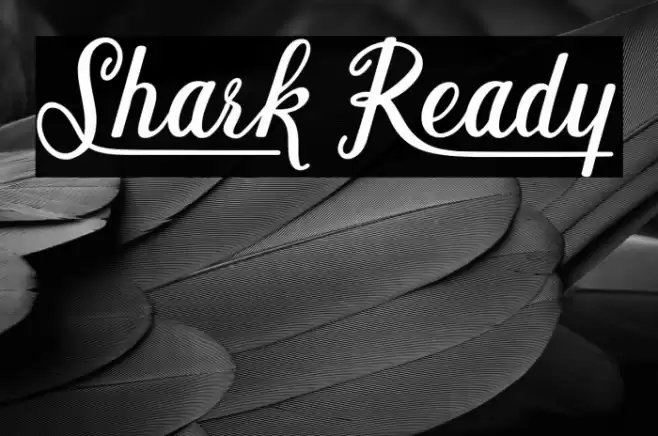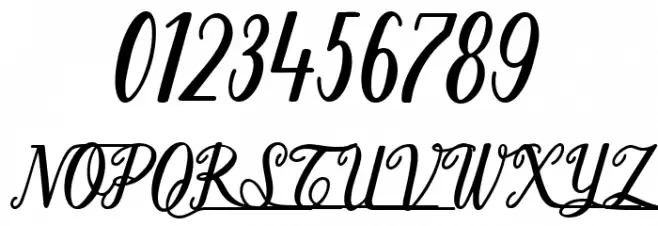
Shark Ready Font
Shark Ready Description
This font features a classic script style with elegant, flowing lines that convey a sense of sophistication and grace. The uppercase letters are particularly ornate, with sweeping curves and flourishes that add a touch of drama. The lowercase letters maintain a consistent style, offering a smooth and connected appearance that enhances readability. The numerals are well-integrated, matching the overall aesthetic with their own subtle curves. This font is ideal for projects that require a touch of elegance and formality, such as wedding invitations, formal event programs, or upscale branding. The special characters are thoughtfully designed to complement the alphabet, ensuring a cohesive look across all text elements.
An elegant script font with flowing, ornate lines and sophisticated style from Uncategorized fonts.
- Proposed Projects: Wedding invitations, formal event programs, upscale branding, elegant packaging.
- Overall Style: Classic
- Use Case: Headlines, Logos, Invitations